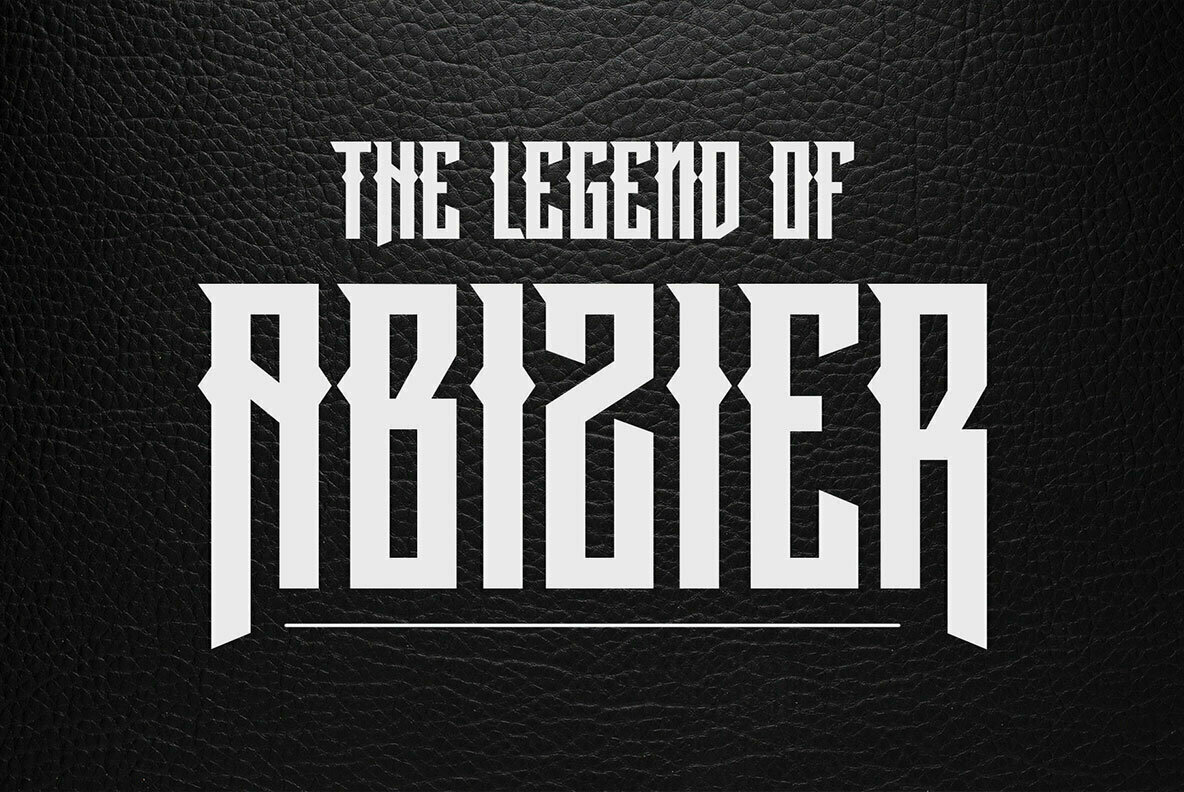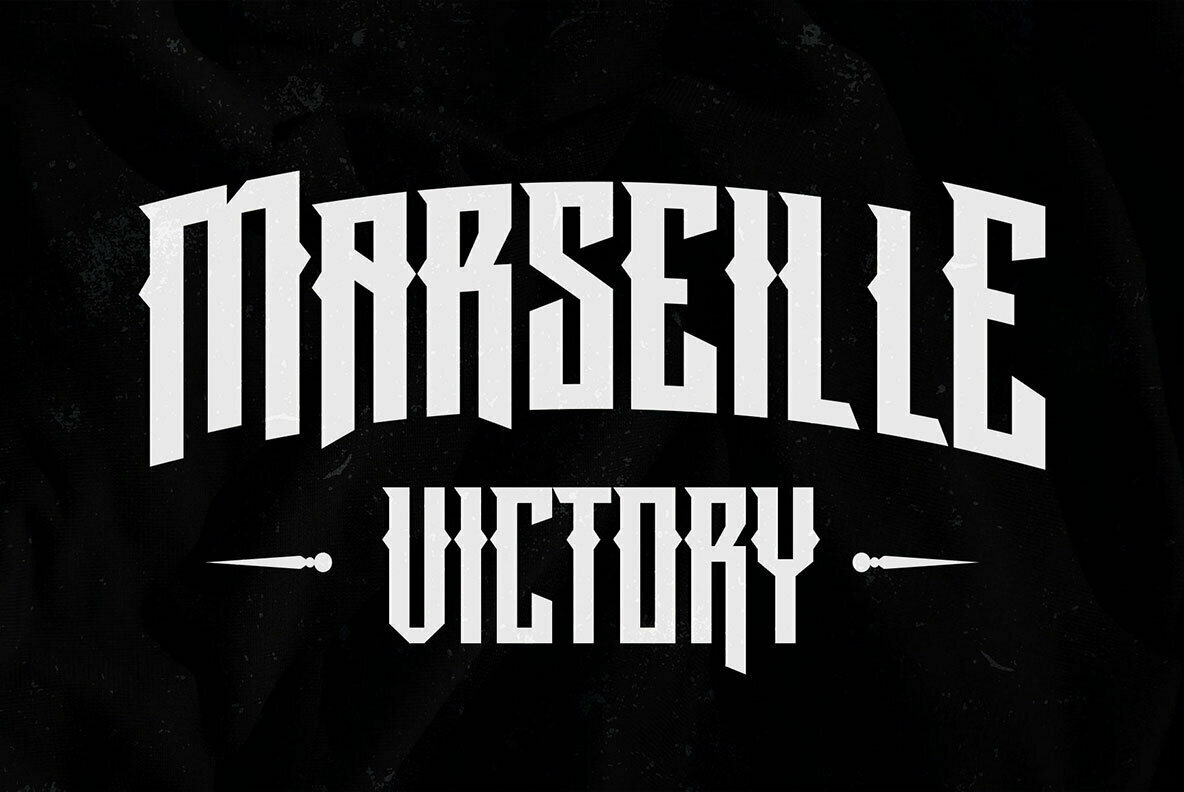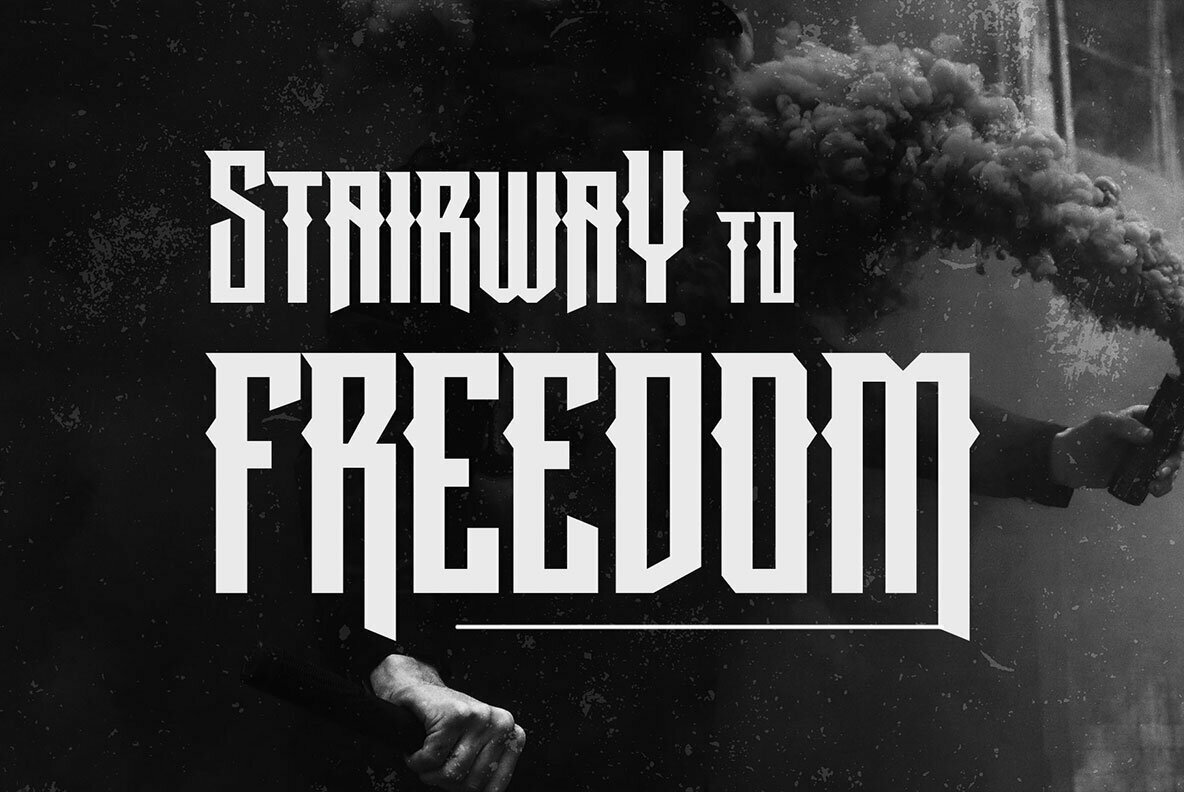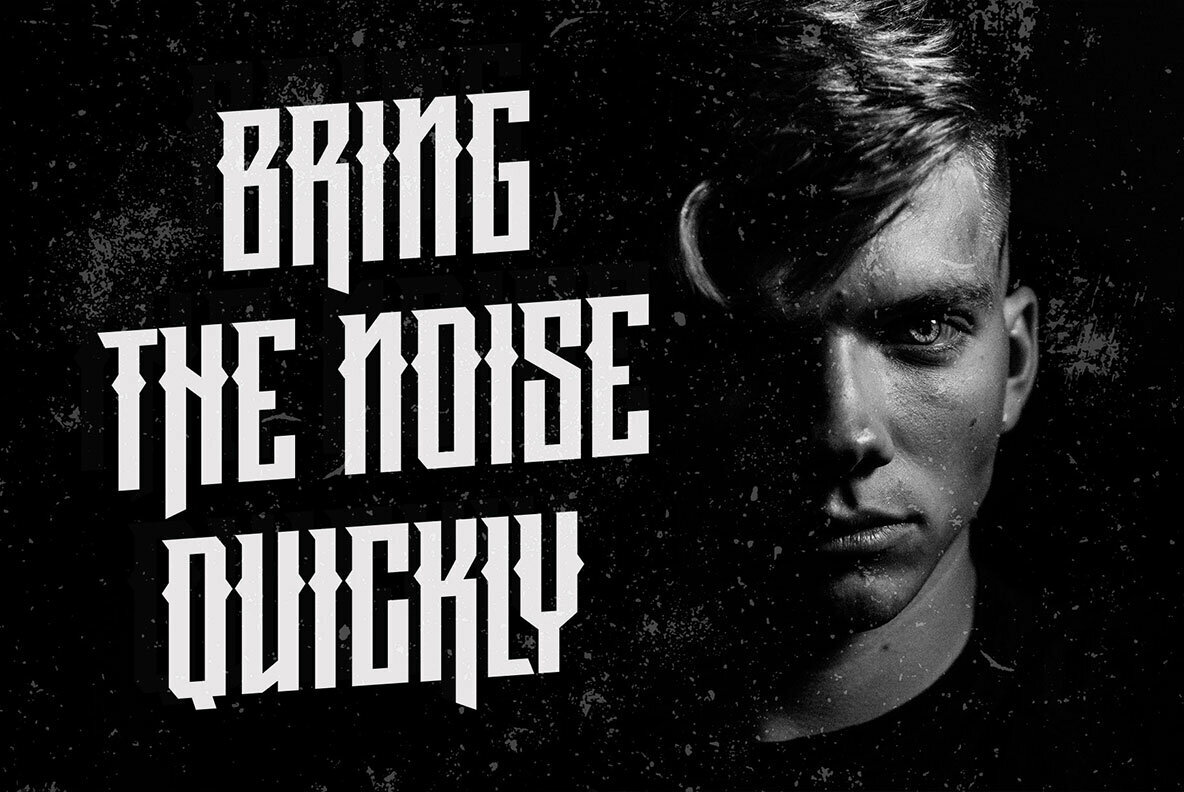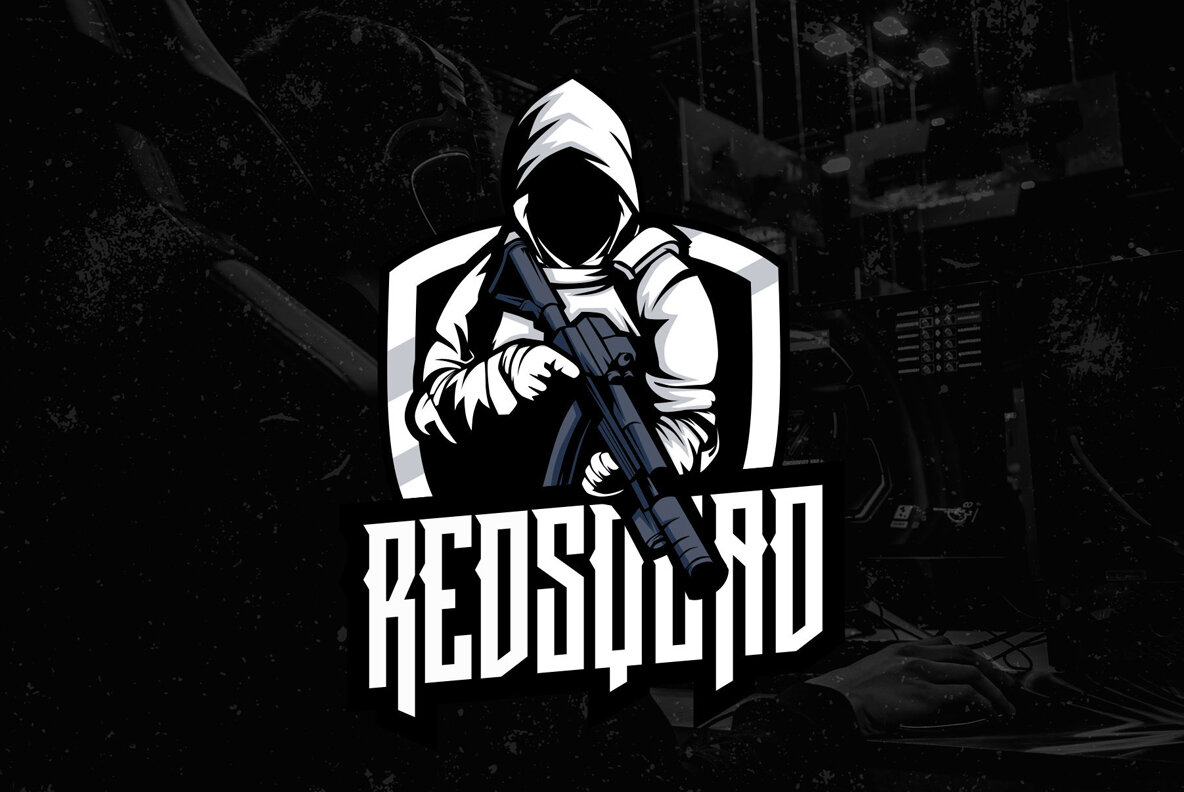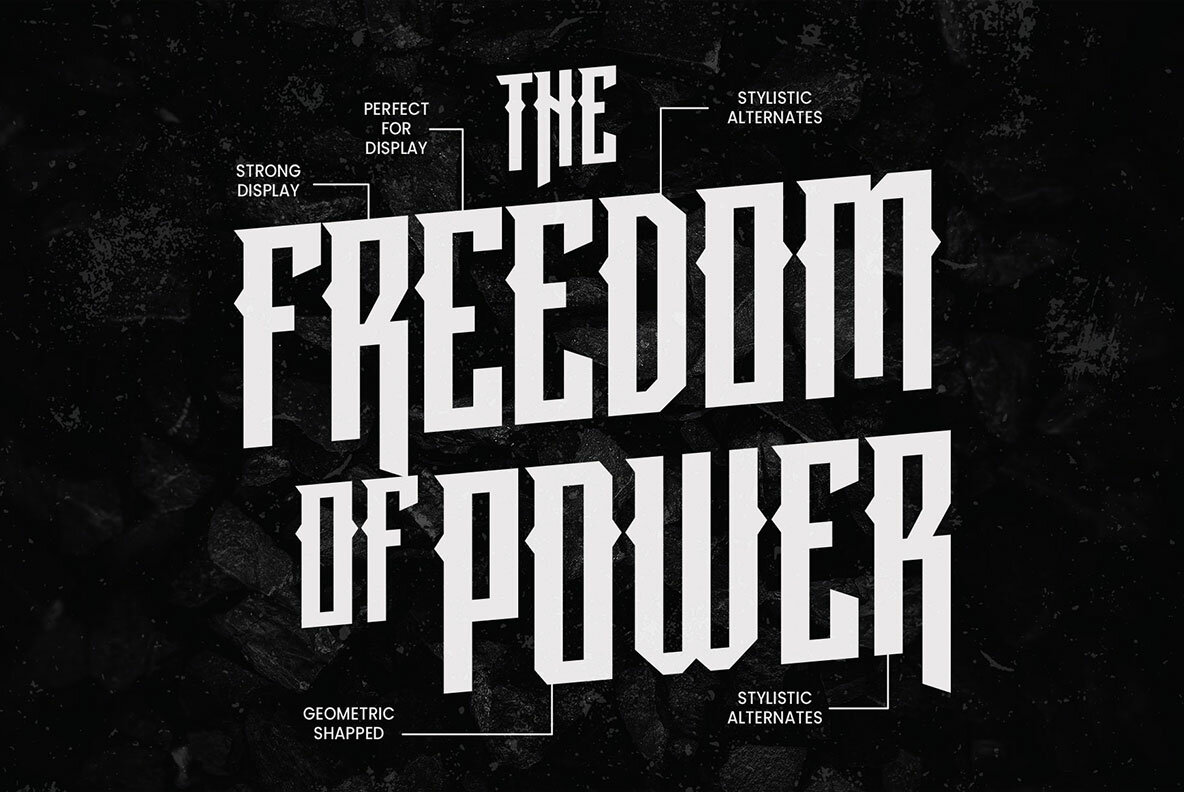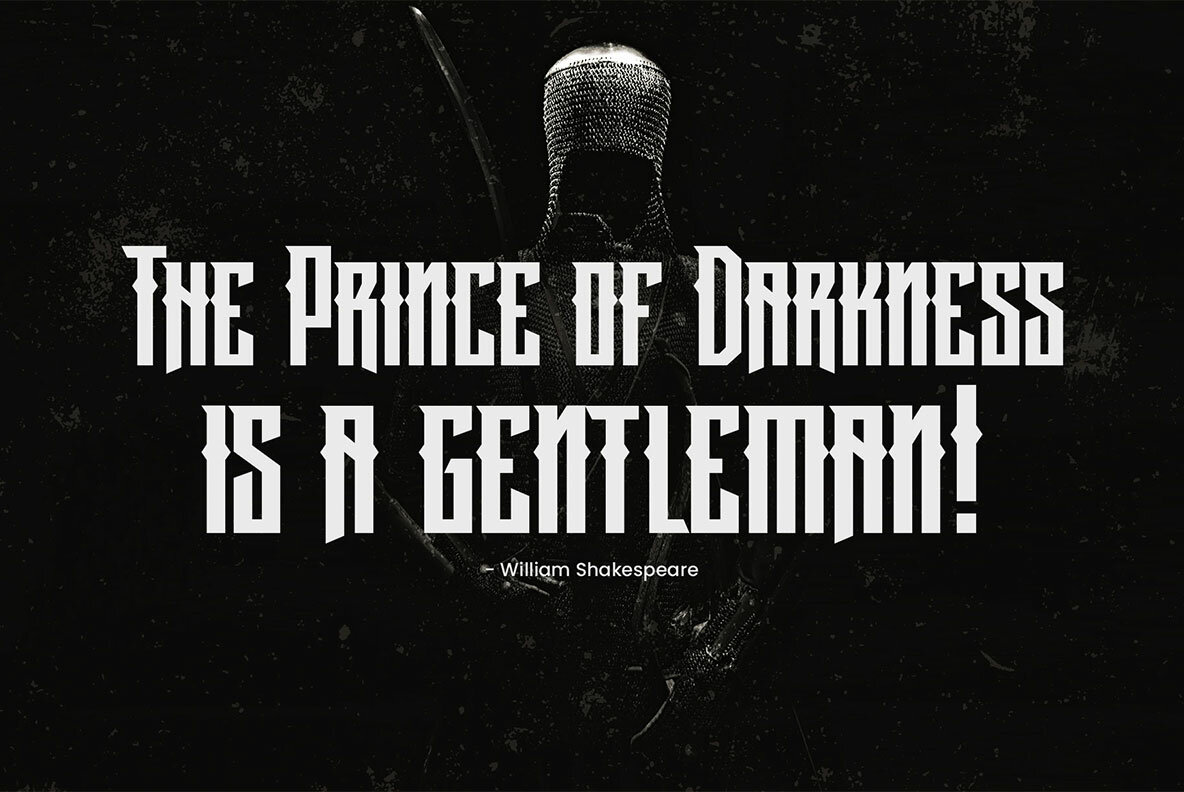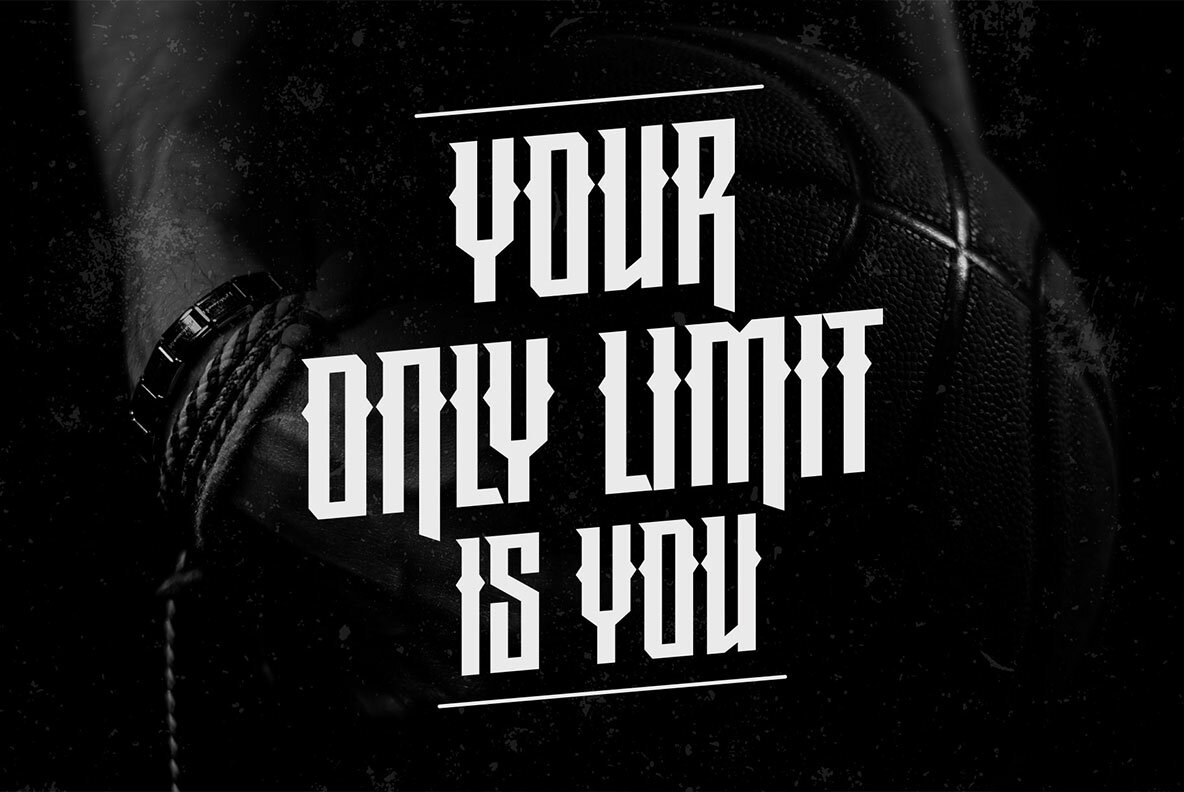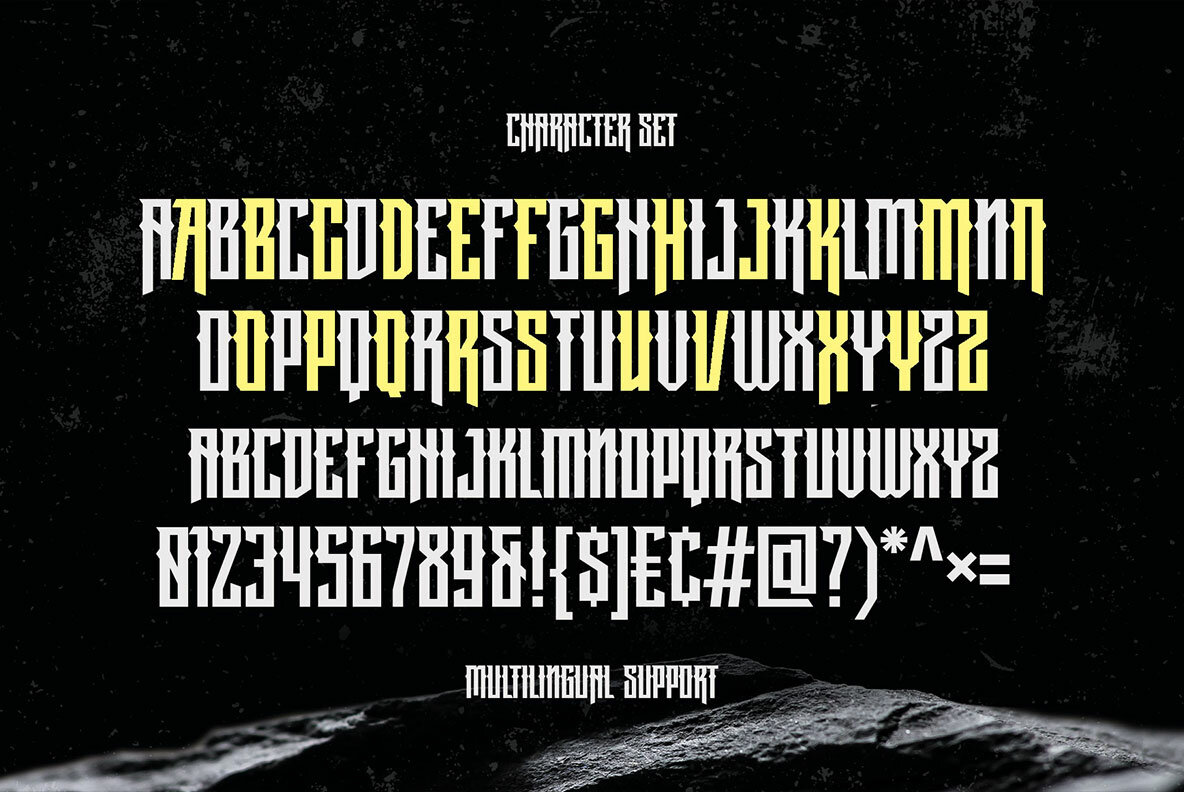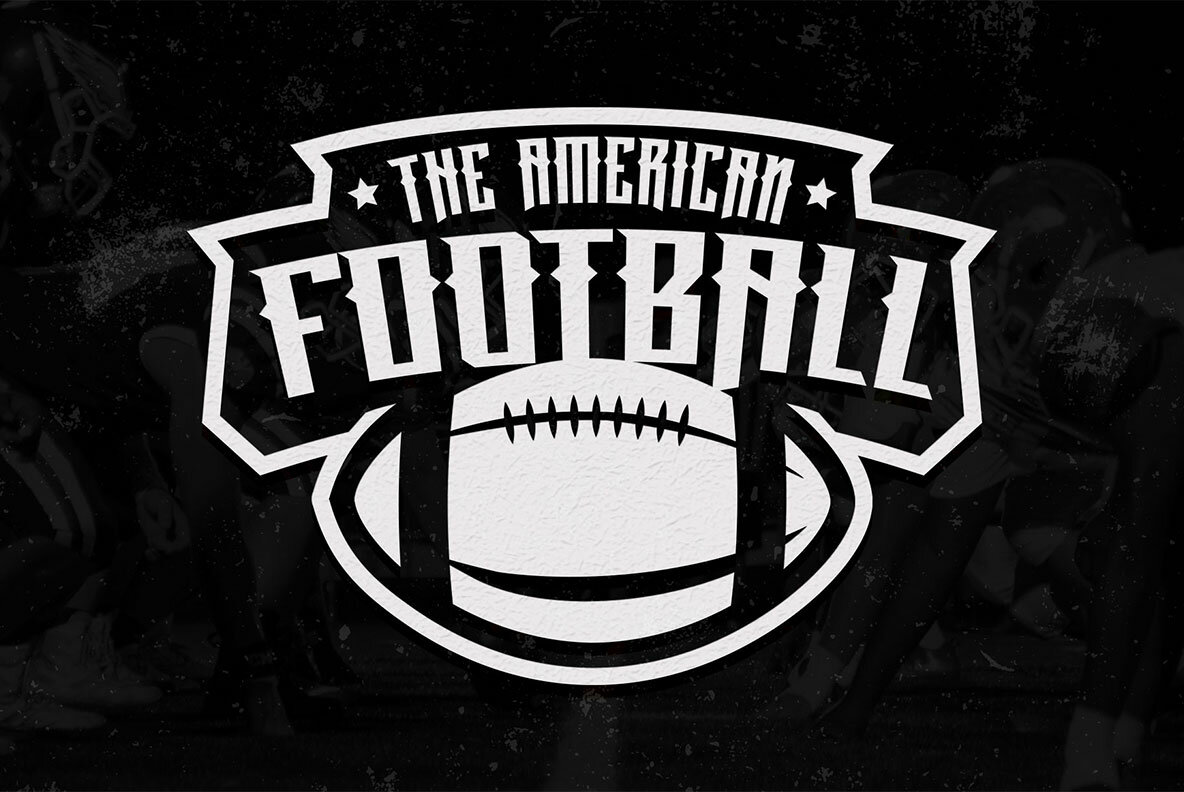
Marinoka Font
Marinoka Regular
The Marinoka font, with its modern, condensed style, showcases powerful strokes and geometric shapes. Designed for dynamic themes, it perfectly suits sporty and masculine aesthetics, as well as urban and underground genres. Its versatility extends to gaming, enhancing everything from logos to merchandise with a striking visual impact. Marinoka features capital letters and small-caps, along with a set of alternates in the small caps, allowing for creative combinations that amplify the font’s robust appeal.Marinoka: A Condensed Font for Bold, Modern Designs